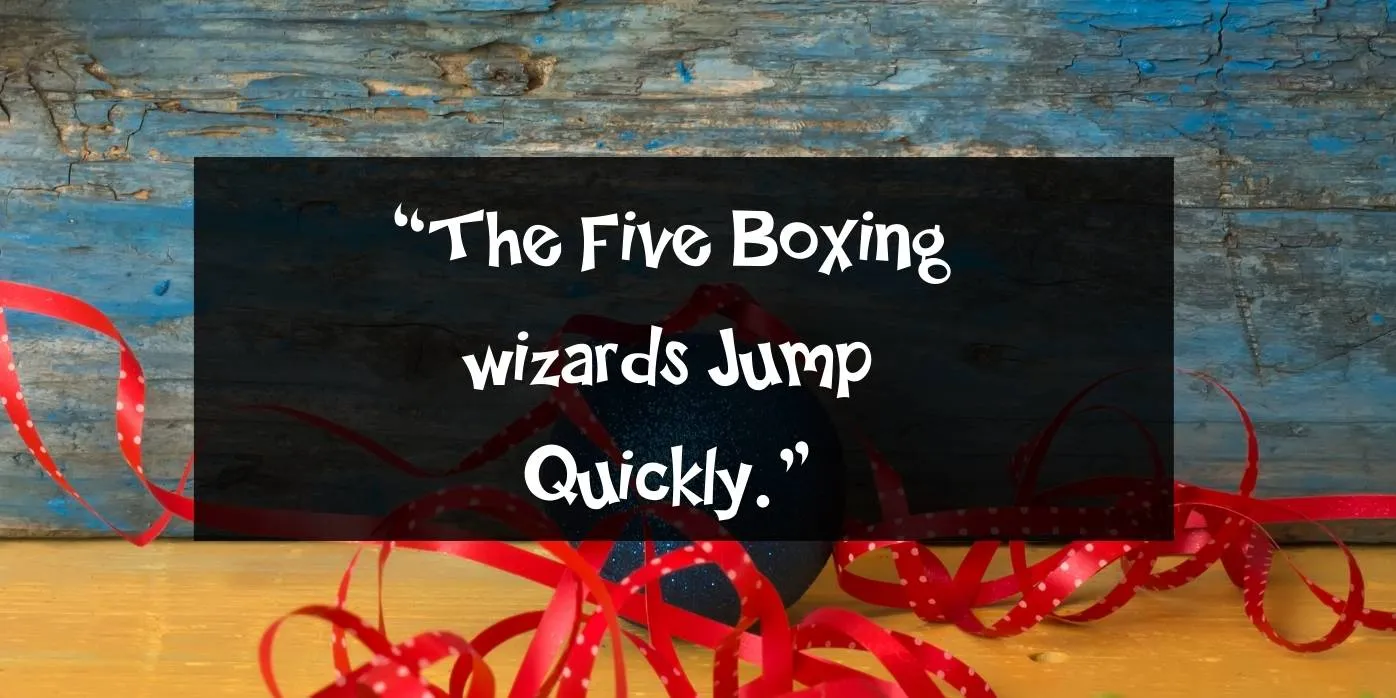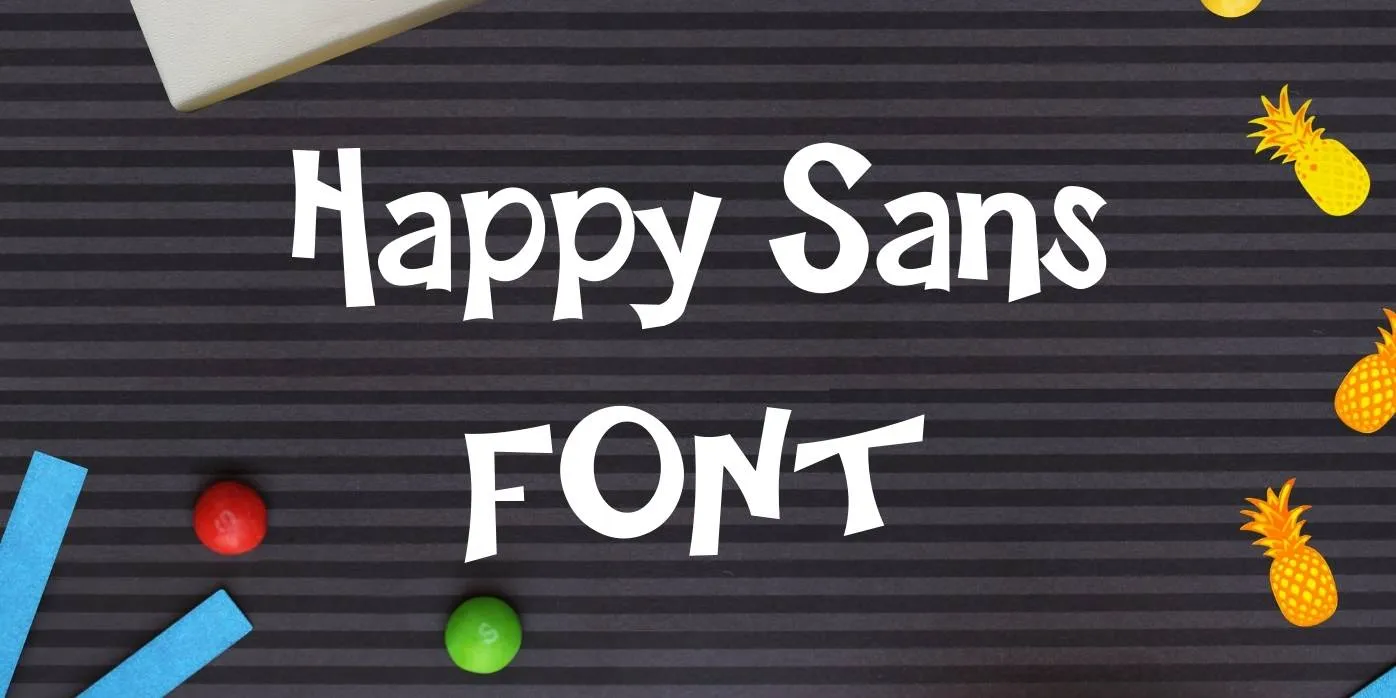
Happy Sans Font
Here, we are going to discuss a classic typeface that is famous with the name Happy Sans Font. The main developer of this typeface was Stephen Knouse. This cute font family belongs to the Fancy Fonts. It has neat and clean textures.